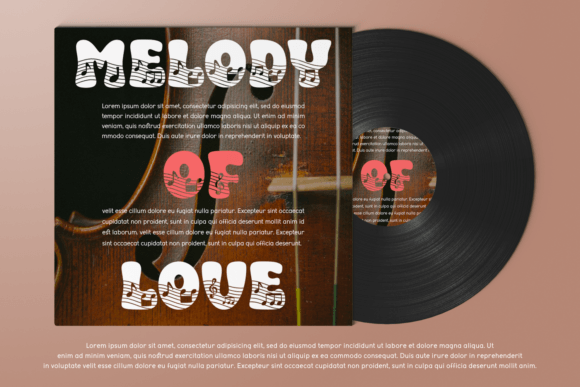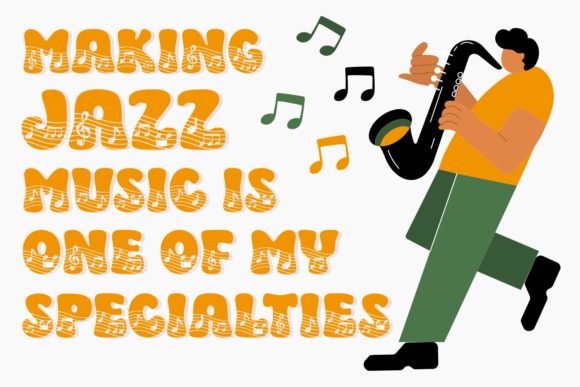
Introduction to Ohyte Font
Do you ever get that moment when a spark of creativity strikes, and you just can’t wait to bring your idea to life? For designers, this moment is often accompanied by the search for the perfect font to match their vision. If you’re looking for a font that embodies the essence of playfulness and whimsy, look no further than the Ohyte Font.
This delightful display font is a treasure trove of creative possibilities, waiting to elevate your designs and leave a lasting impression. Whether you’re working on an invitation, a thank you card, or a logo, the Ohyte Font is sure to add a touch of personality and charm. Plus, with its PUA encoding, you’ll have access to a wide range of glyphs and swashes to experiment with, making it an invaluable resource for any design project.
As a valuable addition to your design arsenal, the Ohyte Font offers a high-quality, free download that’s perfect for designers seeking a unique and eye-catching font for their creative projects. With its transparent background and versatility, this font is a must-have for anyone looking to add a touch of magic to their designs.
- Designed to be versatile, making it suitable for a range of creative projects, from branding to digital art.
- Unique and creative design makes it stand out from other fonts, perfect for adding a touch of personality to your project.
Honest Review: Ohyte Font
I recently came across the Ohyte Font and was excited to give it a try for my latest design project. As a designer, I’m always on the lookout for high-quality design resources to enhance my creative work.
What works well: ✨ The Ohyte Font is available for free download, which is a huge plus for designers on a budget. The font is also incredibly versatile, with a range of styles and weights to suit various design needs. I was impressed with the level of detail and attention to design that has gone into creating this font.
- Perfect for design projects requiring a modern, sleek look
However, there are a few limitations: ⚠️ The font may not be suitable for projects requiring a more rustic or vintage aesthetic, as it has a very modern feel. Additionally, the font may not be as customizable as some other design resources.
Overall, I was impressed with the Ohyte Font and would definitely recommend it for design projects requiring a high-quality, modern look. With its free download and transparent background, it’s a great addition to any designer’s toolkit.
The Ohyte Font is a versatile and high-quality design resource ideal for creative projects. This font is available for free download and features a transparent background, making it easy to customize and integrate into various designs.
The Ohyte Font is suitable for a variety of creative projects, including branding, marketing materials, social media graphics, and presentations. Its high-quality design and transparent background make it an ideal choice for designers and non-designers alike.